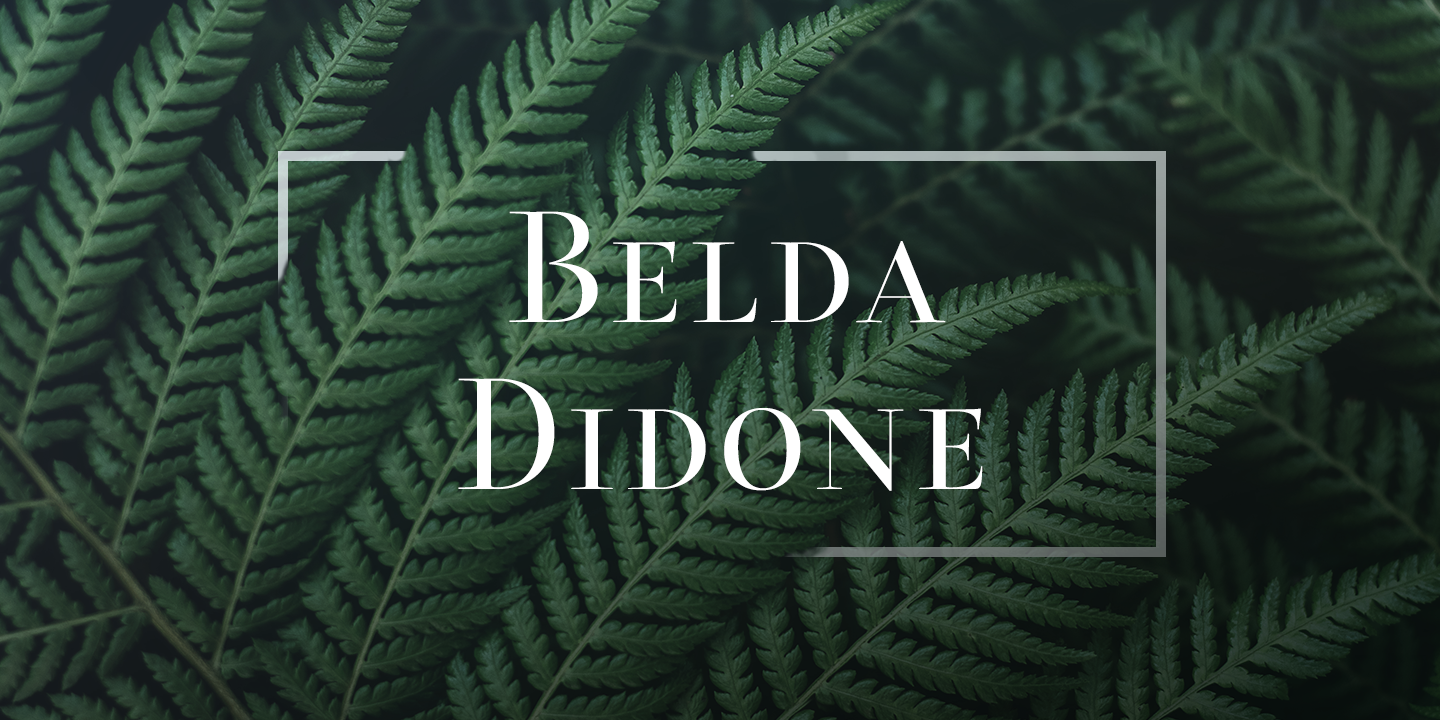
Belda Didone Font is ideal for luxury fashion magazines, high-end editorial layouts, elegant book typography, sophisticated brand identities, premium cosmetics packaging, and classical music concert programs.
Belda Didone Font is exciting because it masterfully combines neoclassical elegance with contemporary sophistication, delivering a refined serif typeface that epitomizes typographic excellence and editorial distinction.
The Belda Didone Font family includes classical variations: Belda Didone Light, Belda Didone Regular, Belda Didone Medium, Belda Didone Bold, italic styles, and ornamental characters that enhance the font's neoclassical heritage.
Embrace typographic perfection with Belda Didone Font Free Download, an exquisitely crafted serif typeface that brings neoclassical elegance and editorial sophistication to your most prestigious publishing projects. This distinguished font excels in creating memorable identities for luxury publishing houses, high-fashion brands, fine art galleries, and cultural institutions that demand the highest standards of typographic refinement and visual excellence. The meticulously designed letterforms feature dramatic contrast between thick and thin strokes with razor-sharp serifs that communicate authority, tradition, and intellectual sophistication while ensuring flawless legibility in both display and body text applications. Perfect for literary journals, museum catalogs, luxury brand communications, and academic publications that need to convey scholarly credibility and cultural prestige, this font connects with discerning audiences who appreciate classical beauty and typographic artistry. Each character stands as a monument to printing excellence, making every page feel like a masterpiece of editorial design. Belda Didone Font transforms written communications into timeless works of art that elevate content and establish unquestionable authority in any sophisticated publishing environment.